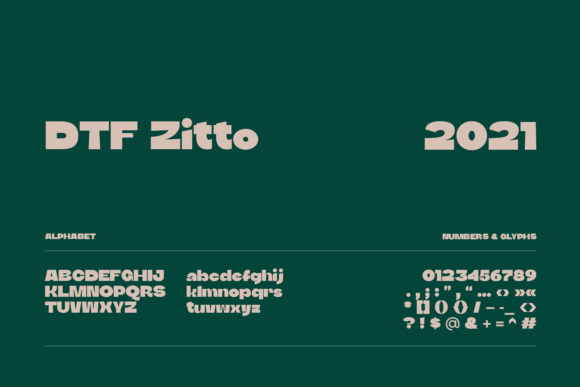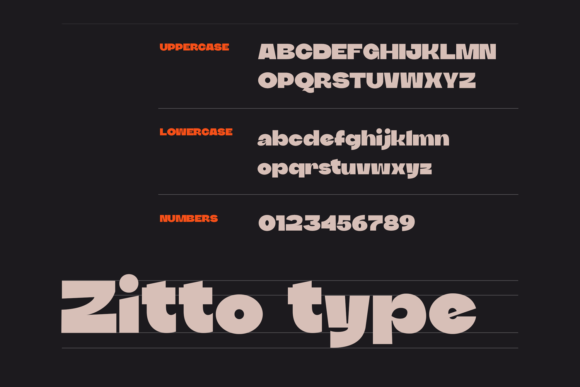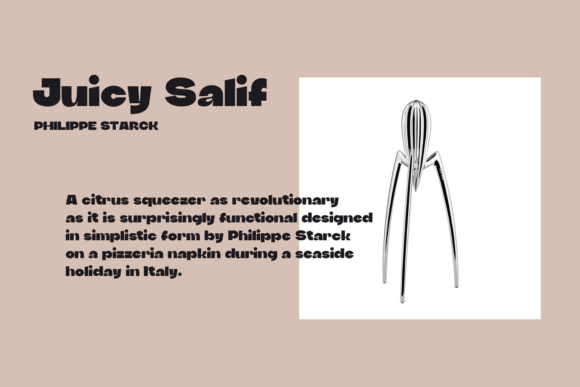
Unleash Your Creativity with DTF Zitto Font
Have you ever been in the middle of a creative project, pouring over designs and ideas, and suddenly – BAM! – inspiration strikes? That’s exactly what happened when we stumbled upon the DTF Zitto Font. This bold, thick lettered display font is the perfect combination of trendiness and versatility.
Whether you’re a seasoned designer or a crafting newbie, the DTF Zitto Font is a valuable addition to your toolkit. With its perfect blend of style and functionality, it’s perfect for everything from digital designing and presentations to crafting and greeting card making. And with its modern, eye-catching aesthetic, it’s sure to elevate any project to the next level.
So why settle for a generic font when you can make a statement with the DTF Zitto Font? Its unique blend of style and functionality makes it a must-have for designers looking to add a touch of personality to their work.
DTF Zitto Font Key Features
- Font Style: DTF Zitto Font is a unique, modern sans-serif font designed for digital printing and various applications.
- Font Size: Offers a wide range of font sizes, from 8pt to 72pt, making it suitable for various design requirements.
- Resolution: Optimized for high-resolution printing (up to 300 DPI) and digital display, ensuring crisp and clear text.
- Unique Characteristics: The font features a distinctive, geometric design with clean lines and a minimalist aesthetic, making it perfect for modern branding and design projects.
Designer Review: DTF Zitto Font
DTF Zitto Font is a font that truly shines in some areas, and I’ll get straight to what works well. ✨ First off, the font’s modern aesthetic is sleek and stylish. The clean lines and rounded edges make it perfect for digital applications where legibility is key. I also appreciate the font’s versatility – it can be used for both body text and headings, making it a great choice for designers looking for a consistent look across their project.
Another thing that impressed me is the font’s customizability. The DTF Zitto Font includes a range of weights, from light to bold, allowing designers to fine-tune the look to suit their needs. Additionally, the font includes various typographic features like ligatures and swashes, which can add a touch of sophistication to a design.
Limits and Opportunities for Improvement ⚠️
- Lack of support for non-Latin scripts, which may limit its use in projects requiring multiple languages.
- The font may not be suitable for print applications where high-resolution output is required.
- The ligatures and swashes, while visually appealing, can sometimes clash with the text, so designers should use them judiciously.
While not without its limitations, the DTF Zitto Font is a solid choice for designers looking for a modern, versatile font. Its clean design, customizability, and typographic features make it an excellent addition to any design project. With some careful consideration of its limitations, designers can unlock the full potential of this font and create truly stunning designs.
DTF Zitto Font is a versatile font that can be used in a variety of applications, including:
- Branding and logo design
- Graphic design and visual identity
- Print and digital marketing materials
- Web design and development